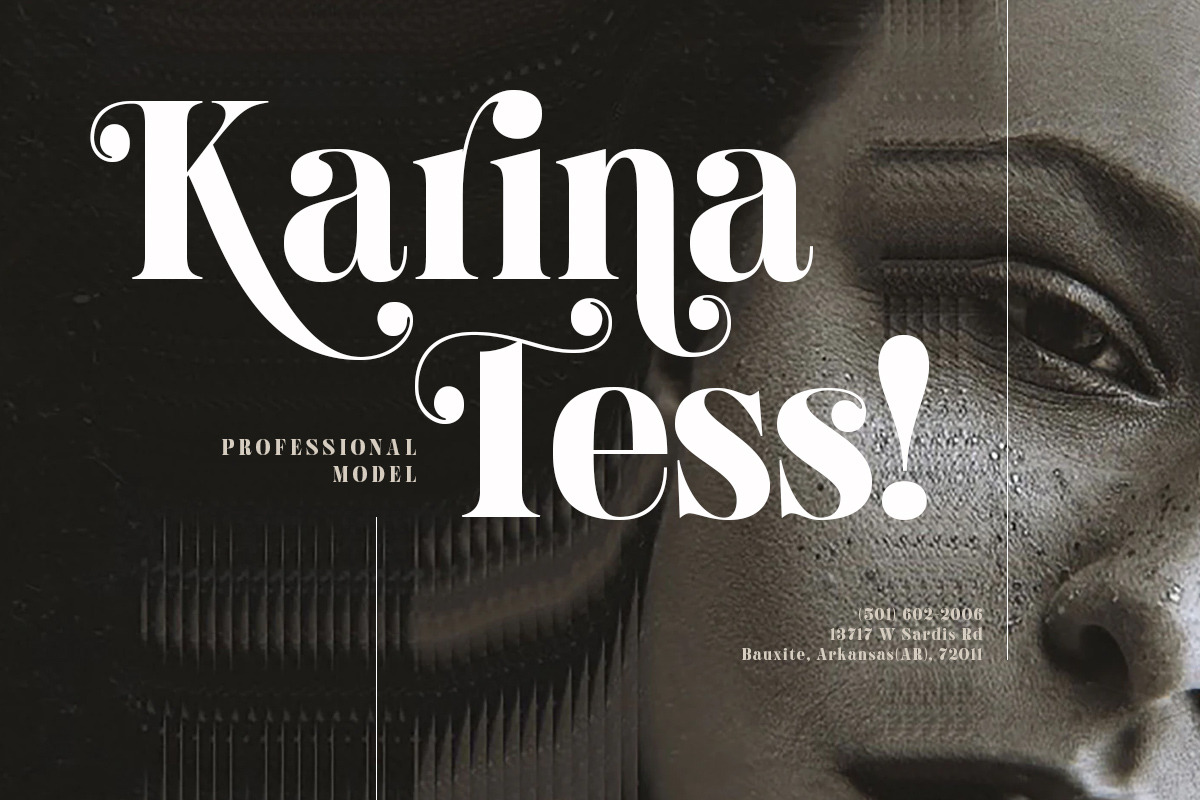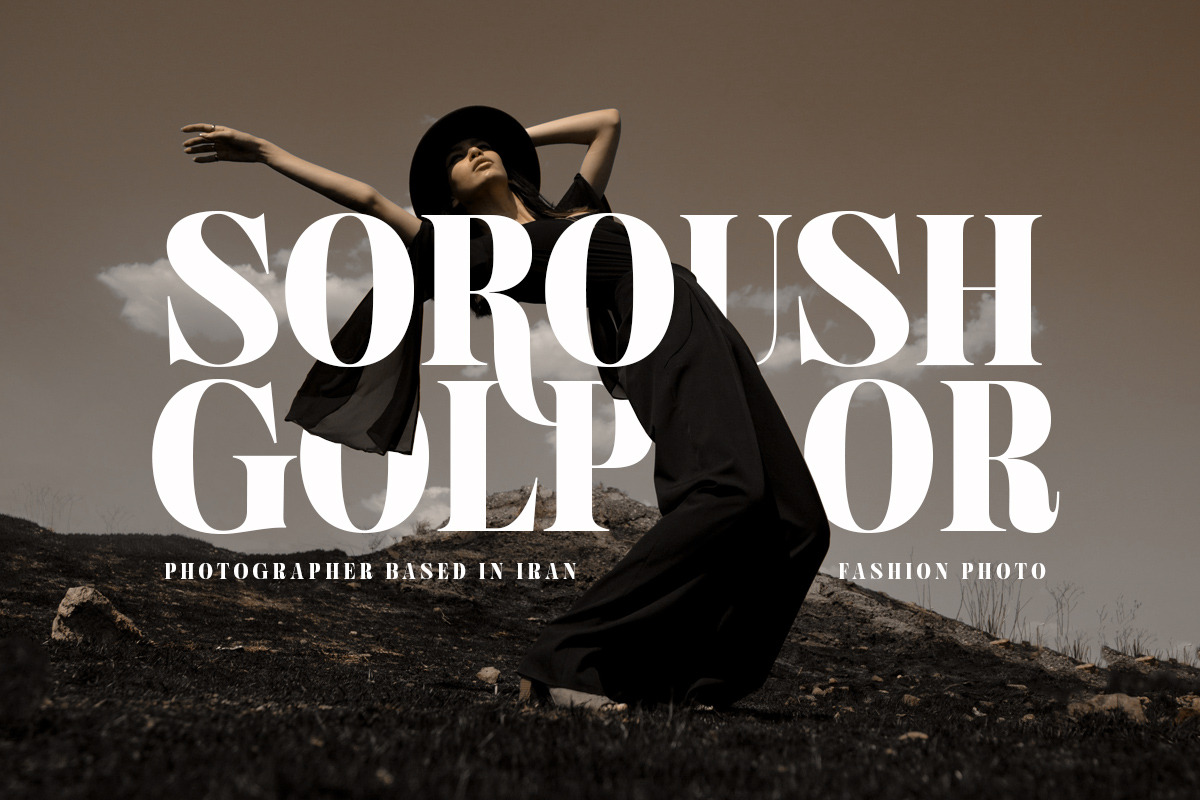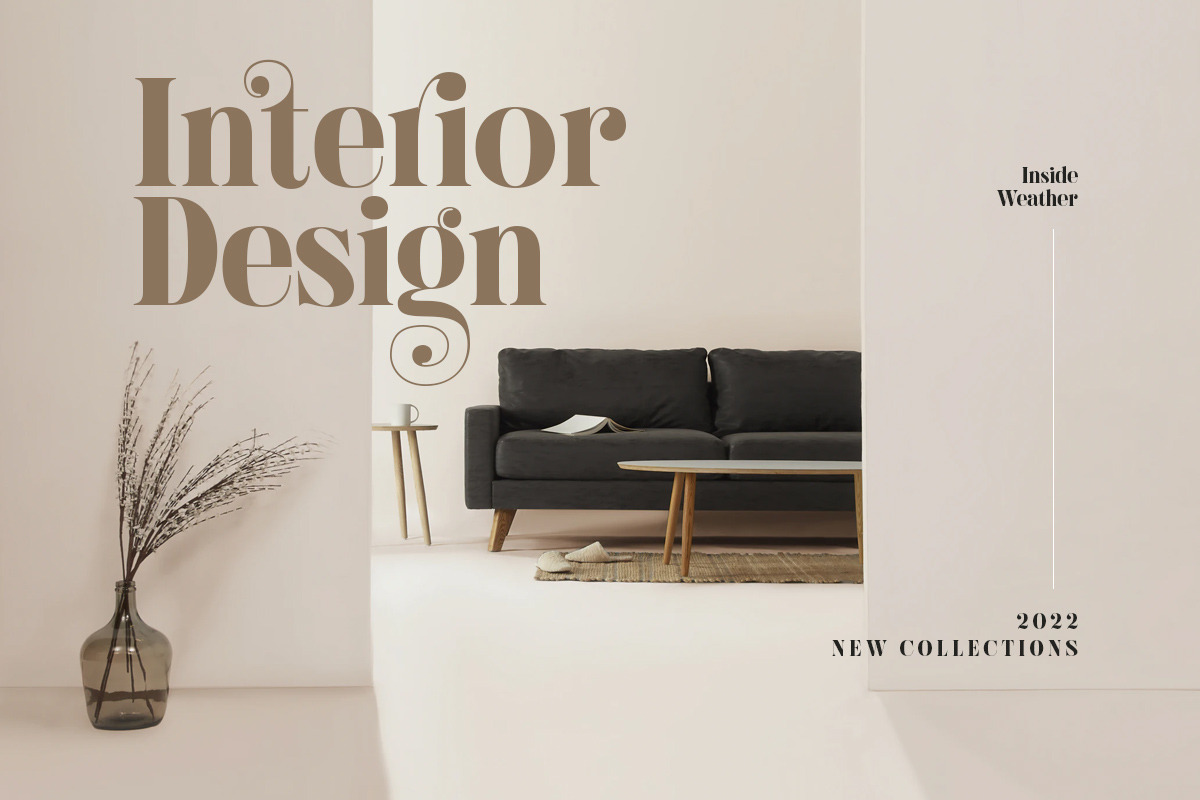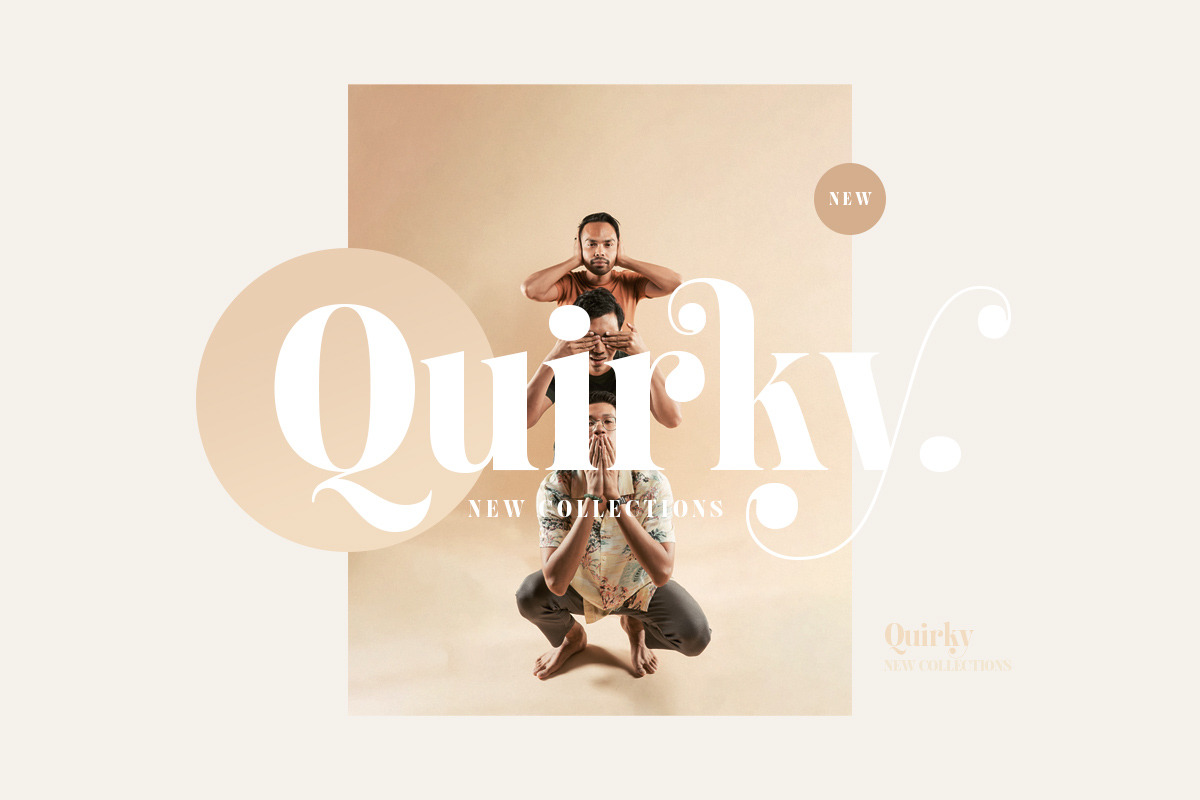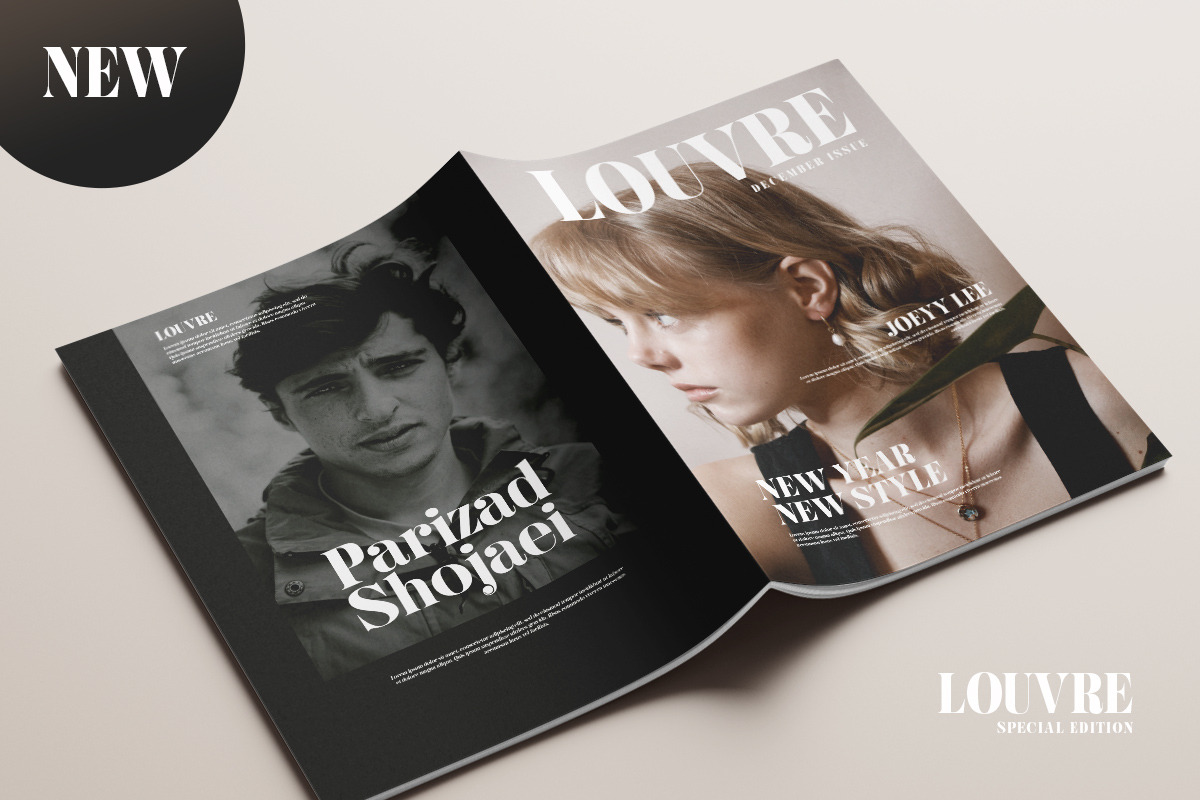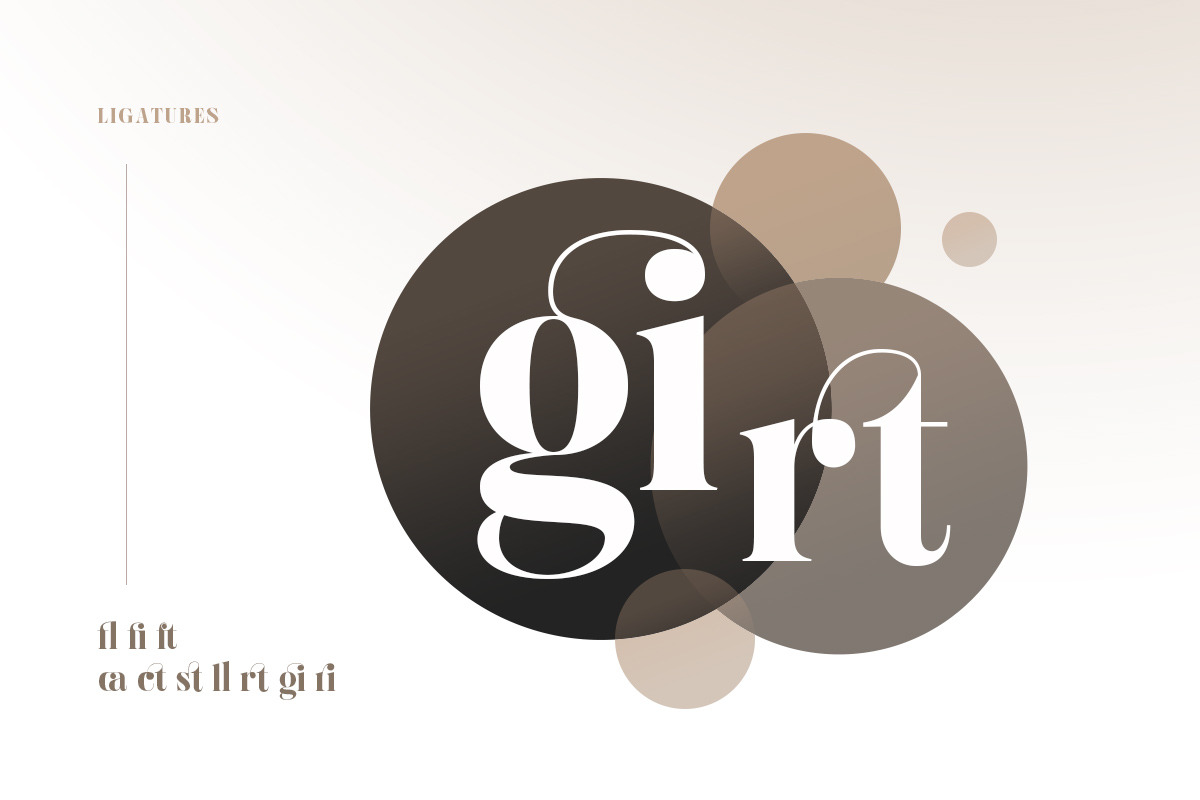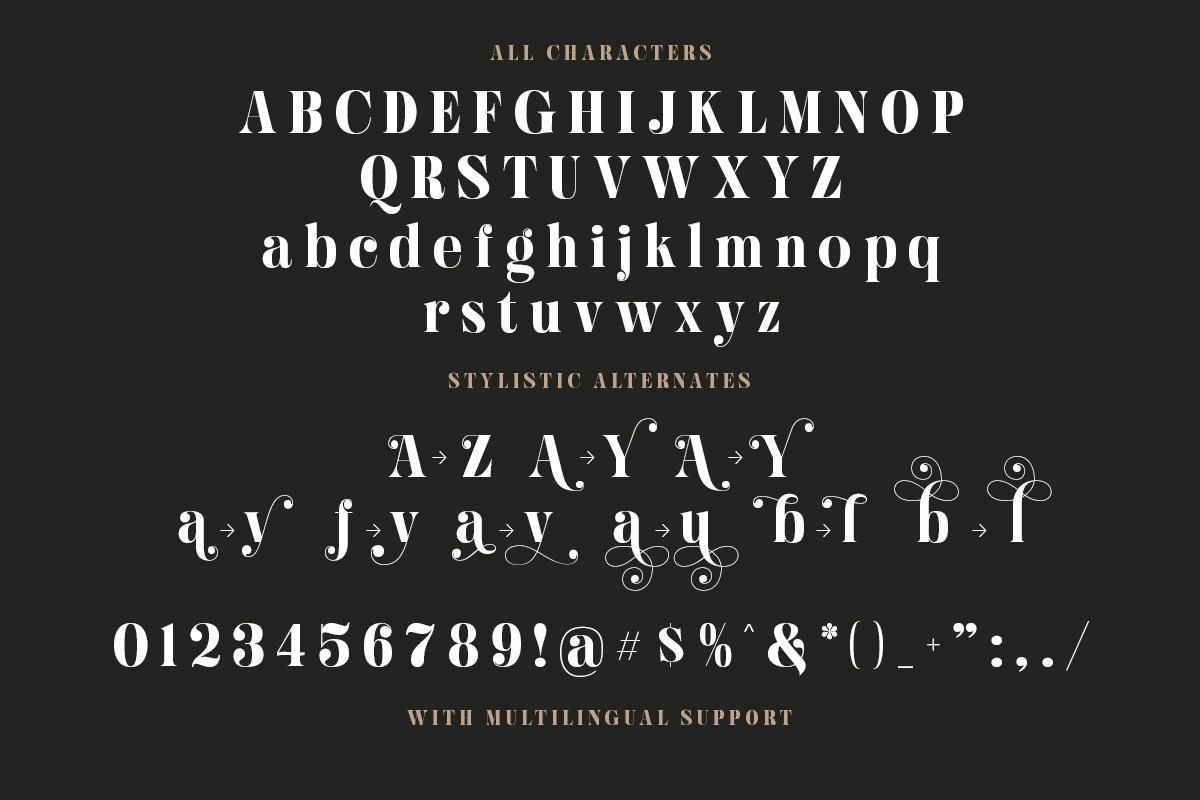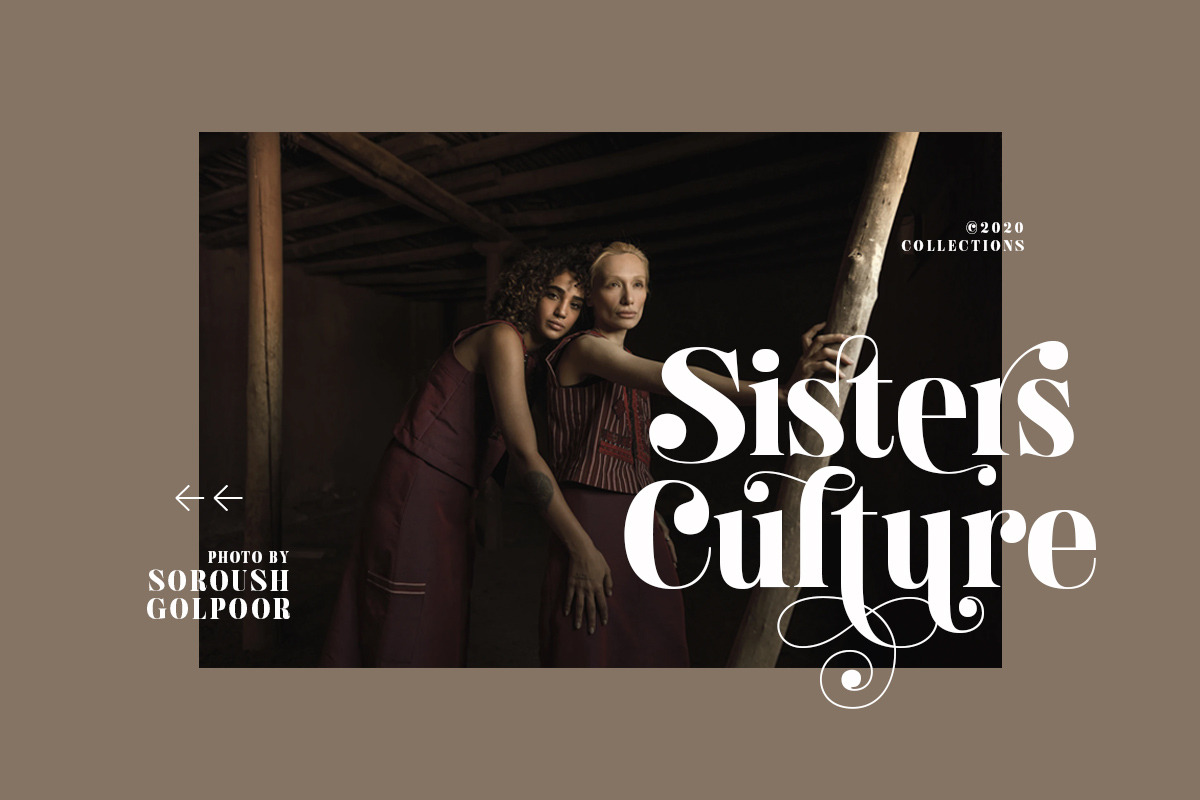
Hugiller - Stylish Serif
Introducing, Hugiller - A high contrast stylish Serif. What makes this font even more unique is the ligatures which gives the modern yet nostalgic feels at the same time, sophisticated and timeless.. This font perfectly made to be applied especially in logo, and the other various formal forms such as invitations, labels, logos, magazines, books, greeting / wedding cards, packaging, fashion, make up, stationery, novels, labels or any type of advertising purpose.
- alternates & ligatures